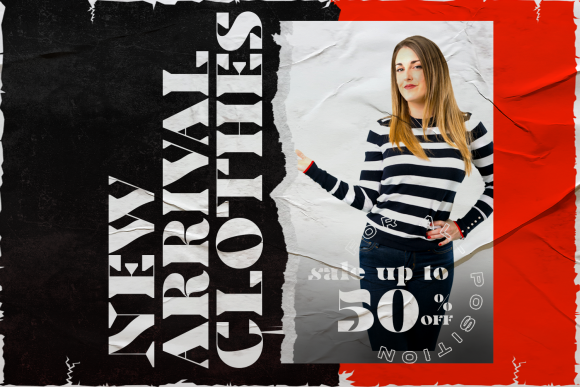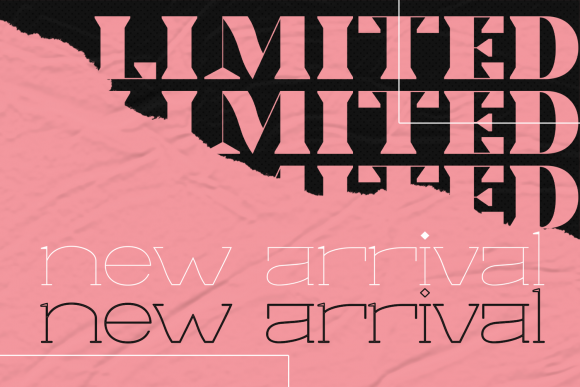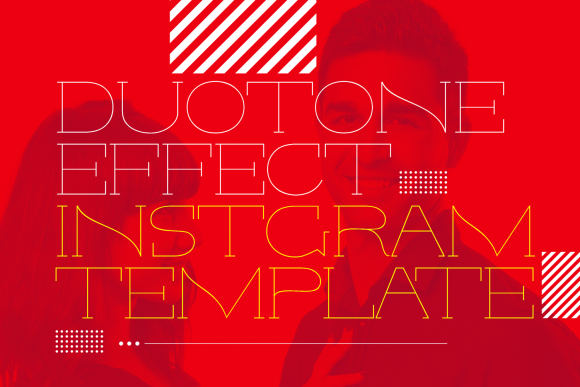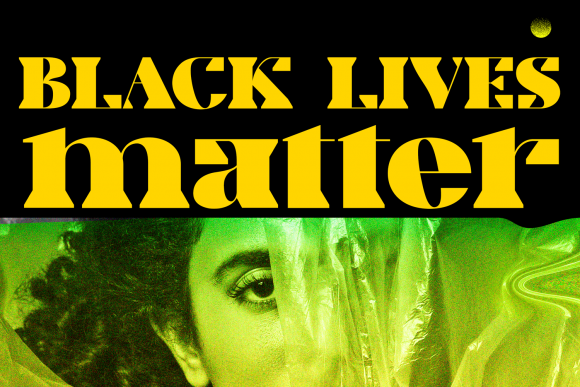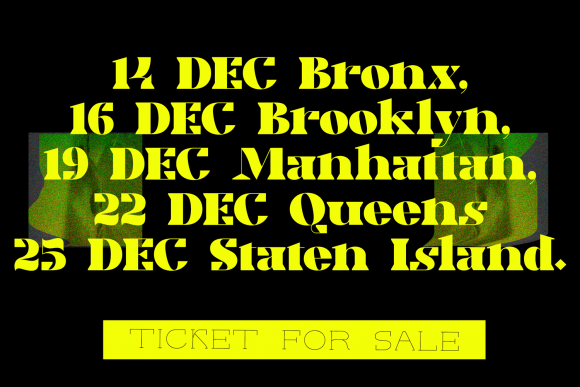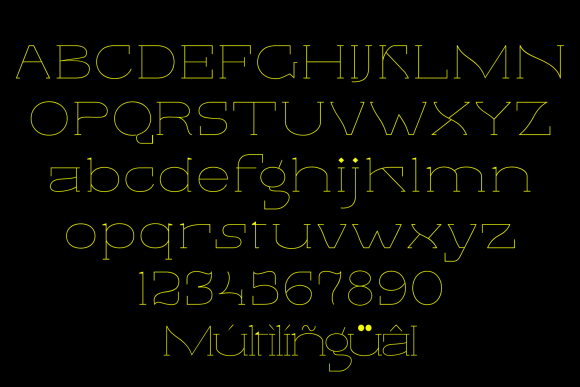
Cake Circle Font: Elevate Your Designs with a Bold and Modern Serif
In the world of typography, a font can make or break a design. For crafty enthusiasts and professional designers alike, finding the perfect font that combines style, versatility, and originality can be a daunting task. That’s where Cake Circle comes in – a bold and modern serif font that’s sure to take your designs to the next level. In this article, we’ll dive into the features, benefits, and uses of Cake Circle, and explore how it can elevate your crafty ideas.
What is Cake Circle Font?
Cake Circle is a bold and modern serif font that’s designed to make a statement. With its unique and original look, this font is perfect for adding a touch of sophistication and elegance to your designs. Whether you’re working on a letterhead, title, or stationery, Cake Circle is sure to impress. Its serif design adds a level of professionalism and classic charm, making it suitable for a wide range of applications.
Key Features of Cake Circle Font
- Bold and Modern Design: Cake Circle boasts a bold and modern design that’s sure to grab attention. Its sleek lines and curves create a visually appealing aesthetic that’s perfect for making a statement.
- Serif Font: The serif design of Cake Circle adds a level of sophistication and classic charm, making it suitable for a wide range of applications.
- Original Look: Unlike other fonts, Cake Circle has an original look that’s sure to set your designs apart from the rest.
- Versatile: Whether you’re working on a letterhead, title, or stationery, Cake Circle is versatile enough to fit any design need.
Benefits of Using Cake Circle Font
So, why choose Cake Circle over other fonts? Here are just a few benefits of using this amazing font:
- Easily Readable: Despite its bold design, Cake Circle is easily readable, making it perfect for body text and headings.
- Highly Versatile: From digital designs to print materials, Cake Circle is highly versatile and can be used in a wide range of applications.
- Unique and Original: With Cake Circle, you can be sure that your designs will stand out from the rest, thanks to its unique and original look.
- Time-Saving: With Cake Circle, you can save time and effort in finding the perfect font for your design, allowing you to focus on the creative aspects of your project.
Uses of Cake Circle Font
So, what can you use Cake Circle for? The possibilities are endless! Here are just a few ideas to get you started:
- Letterheads and Stationery: Add a touch of sophistication and elegance to your letterheads and stationery with Cake Circle.
- Titles and Headings: Use Cake Circle to create bold and eye-catching titles and headings for your designs.
- Logos and Branding: Create a unique and memorable logo for your brand with Cake Circle.
- Digital Designs: Use Cake Circle in your digital designs, such as social media graphics, website headers, and more.
Tips for Using Cake Circle Font
To get the most out of Cake Circle, here are a few tips to keep in mind:
- Experiment with Colors: Try pairing Cake Circle with different colors to create a unique and eye-catching design.
- Play with Sizes: Experiment with different font sizes to create visual interest and hierarchy in your design.
- Mix and Match: Try pairing Cake Circle with other fonts to create a unique and interesting typography combination.